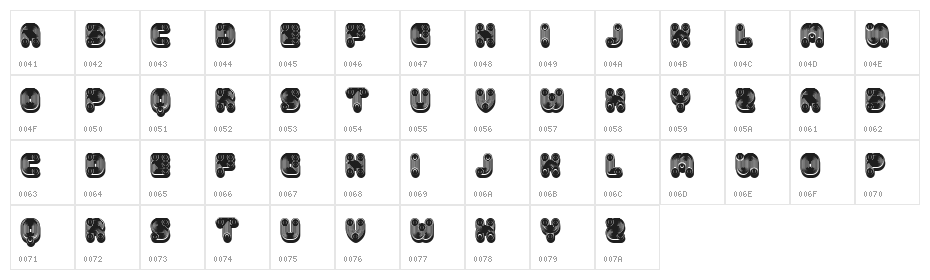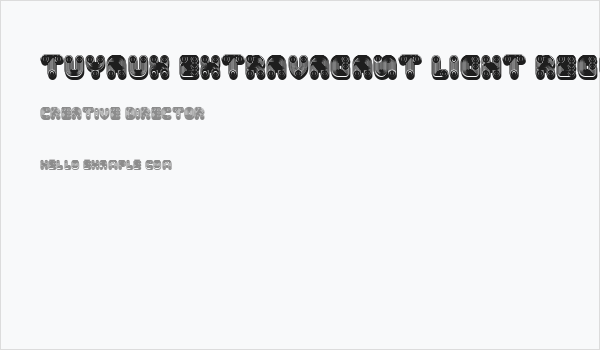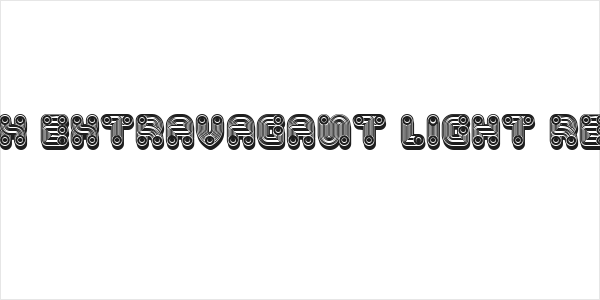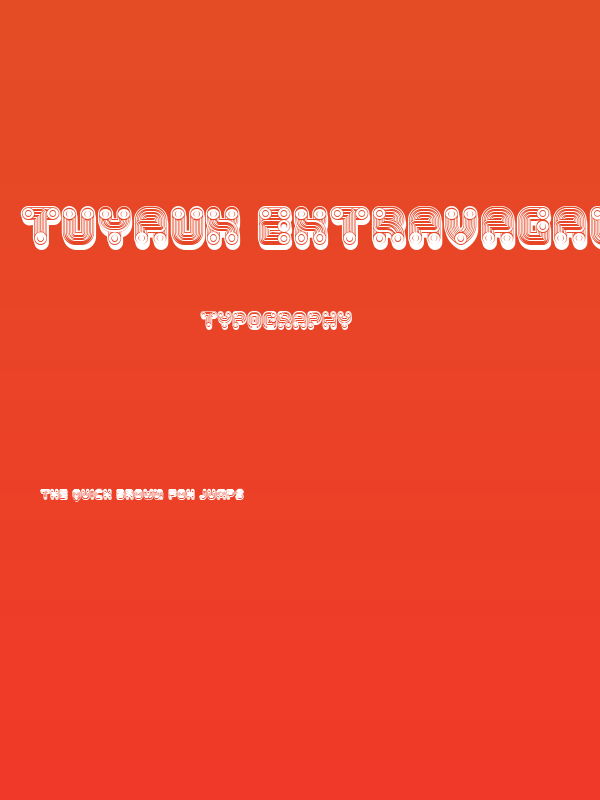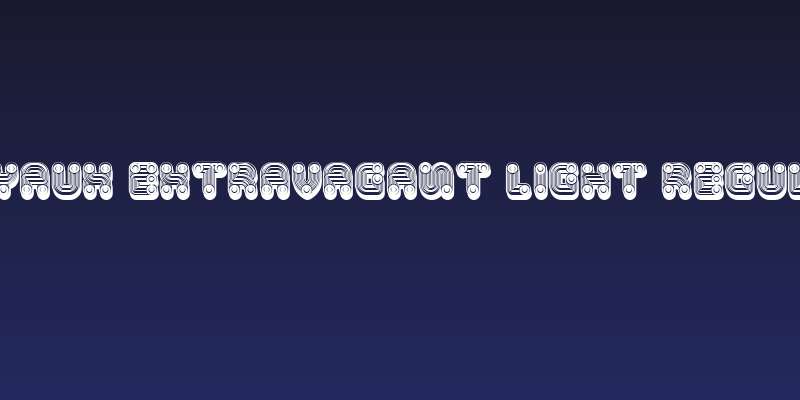
Tuyaux Extravagant Light Regular Font
Tuyaux Extravagant Light Regular Description
This font features an intricate and bold design with a unique, layered appearance. Each character is composed of multiple concentric lines, creating a sense of depth and complexity. The rounded edges and circular motifs give it a playful yet sophisticated look. The font is highly decorative, making it ideal for eye-catching designs. Its geometric structure is consistent across all characters, ensuring a cohesive visual experience. The boldness of the strokes combined with the intricate detailing makes it stand out, perfect for projects that require a strong visual impact.
| Proposed Projects | Ideal for posters, branding, album covers, and any project needing a striking, artistic touch. |